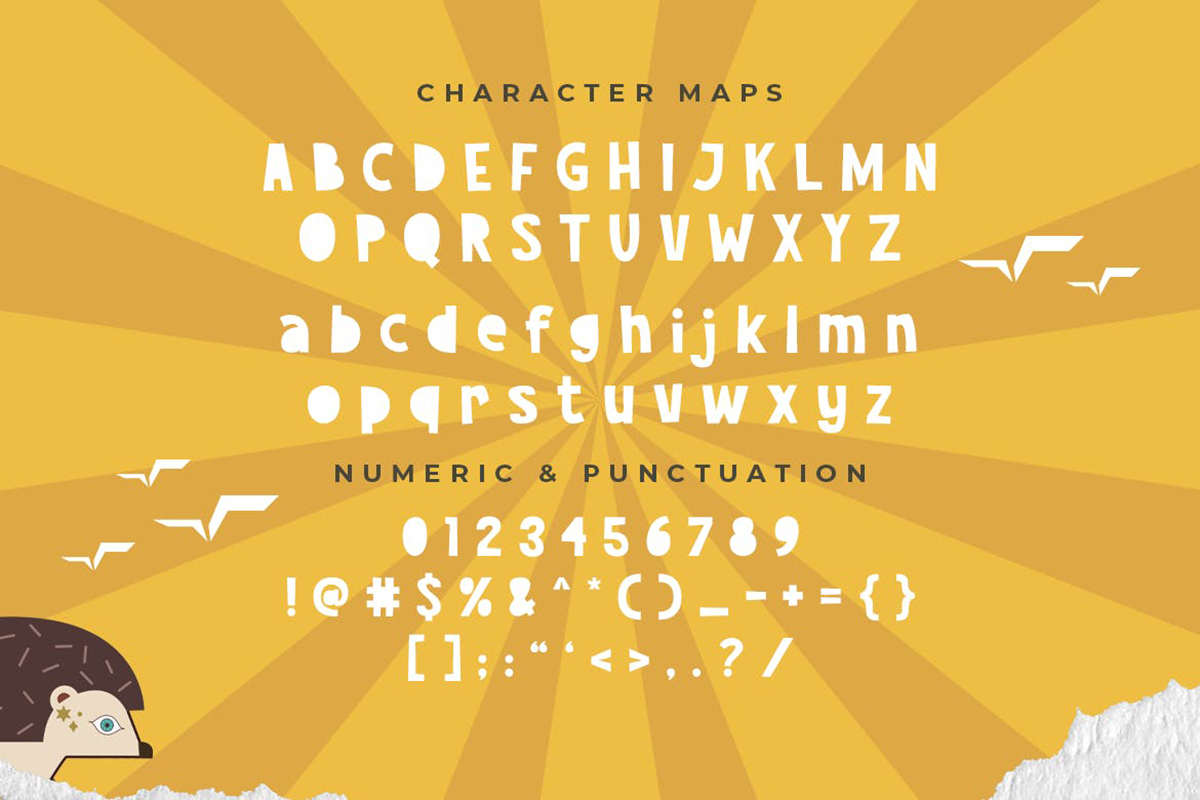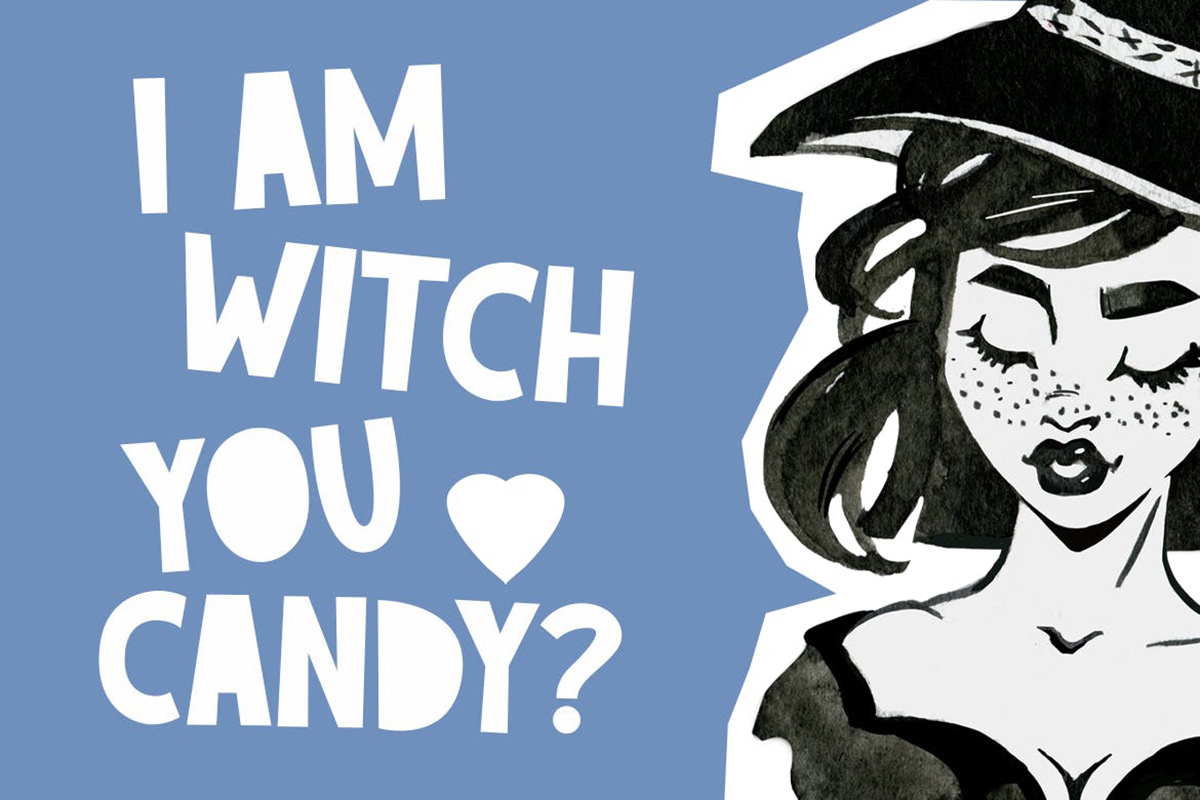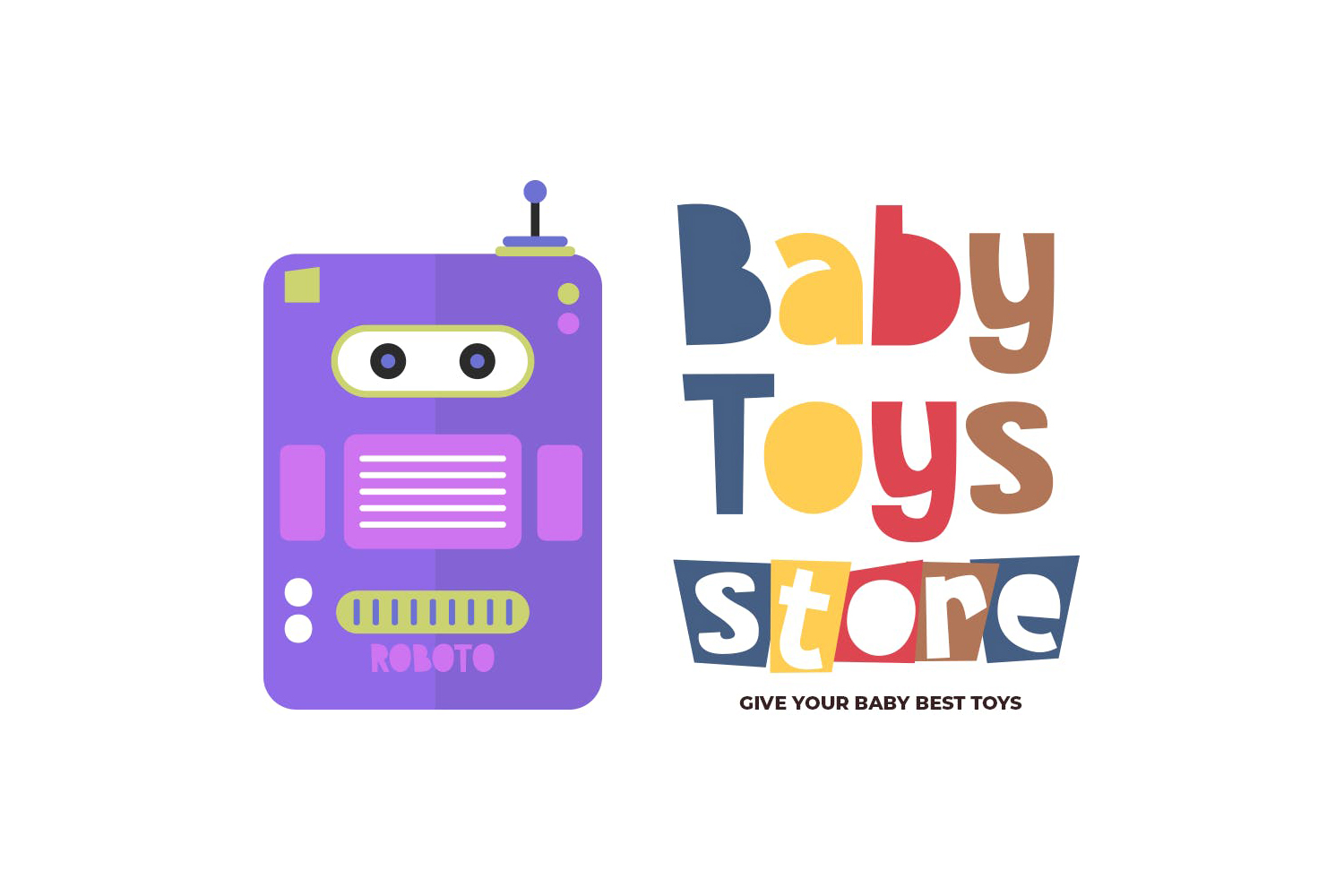
Happy Day Free Font
Introducing Happy Day Free Font, a playful display font with a cutout style that embodies the essence of childhood. Imagine a font crafted from fresh cutout paper, radiating happiness and joyful adventures. Tailored for the kids’ book market, online games, stationary, school supplies, posters, birthday invitations, YouTube covers, thumbnails, social media page covers, and more. Happy Day brings a cheerful touch to all your designs. This free typeface was designed by a talented Twin Letter. If you like it don’t forget to check out the full version.